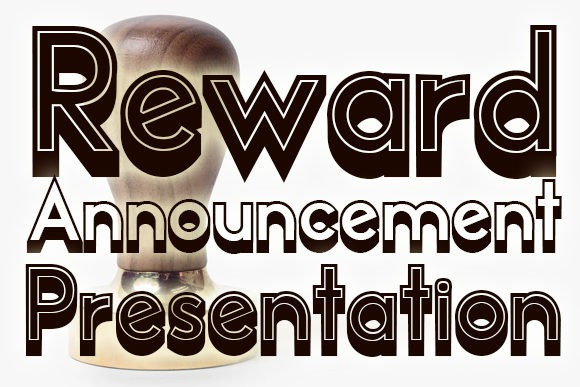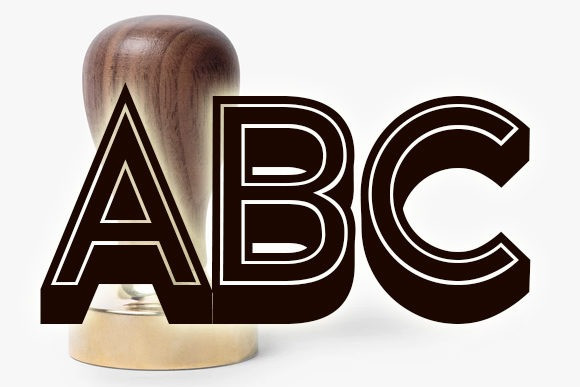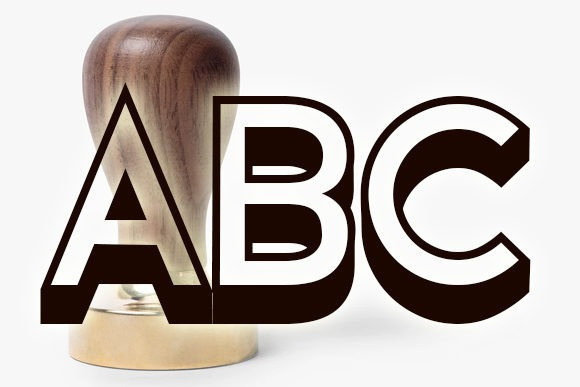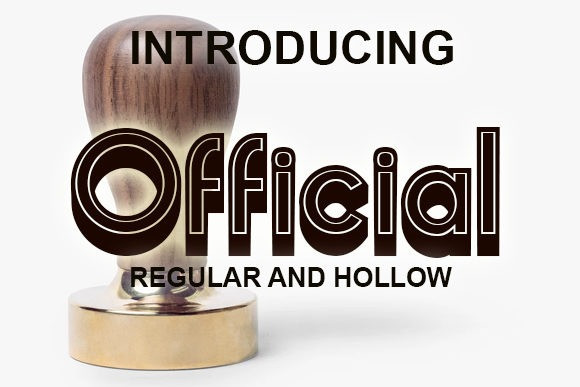
Official Font Family
Official Sans Serif Font
It’s a display sans serif modern font manufactured by vladimirnikolic. It has clean, modern and stylish style. The font has three different styles that great for casual, Beauty, Technology, Game, Magazine, Music, Sport etc